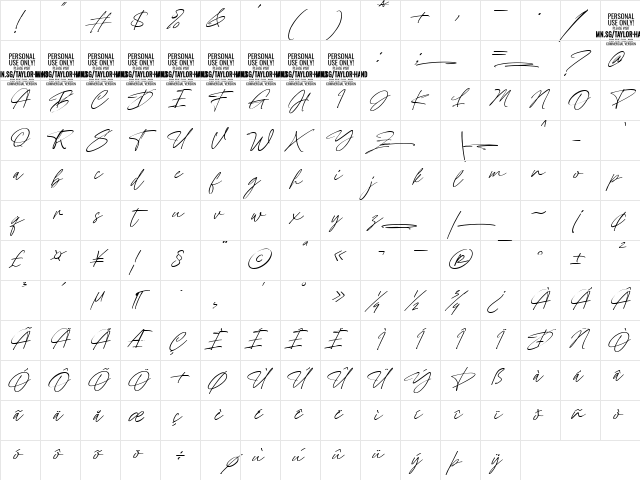
Taylor Hand Italic PERSONAL USE Regular
Design Context for Taylor Hand Italic PERSONAL USE Typeface
Taylor Hand Italic PERSONAL USE brings a calligraphic fluidity to the page — its connecting strokes and expressive curves give it an unmistakably human quality.
Font Pairing: Combine Taylor Hand Italic PERSONAL USE with a simple geometric sans for maximum contrast — the tension between flowing curves and clean structure is a classic typographic pairing.
Pro Tip: Pair Taylor Hand Italic PERSONAL USE with a clean sans-serif for supporting text. The contrast between fluid script and geometric structure creates an elegant typographic hierarchy.